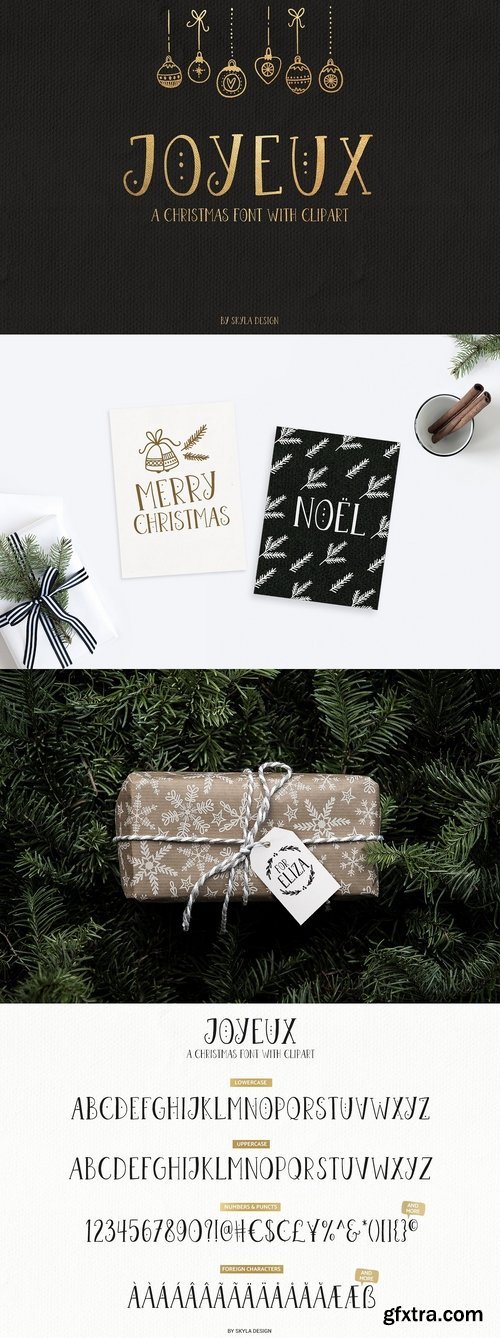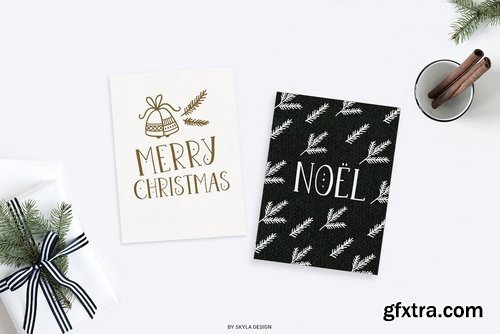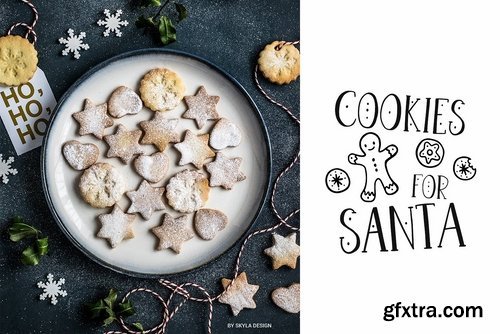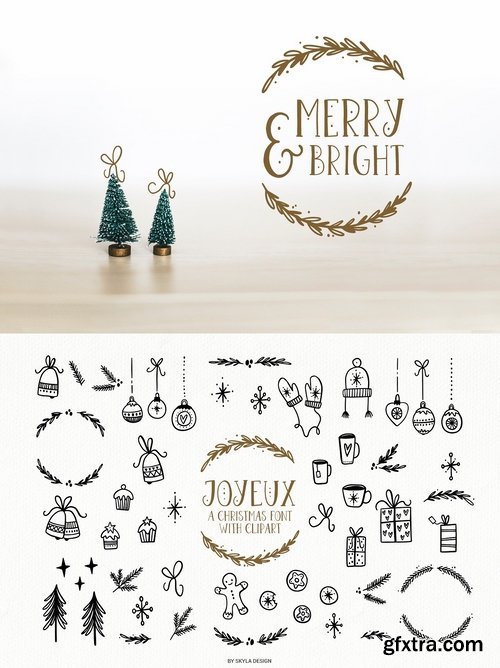
Joyeux is a Christmas font with 52 cute clipart illustrations which will make crafting so much fun.
Joyeux font is an all-caps font that contains standard characters, lowercase, uppercase, numbers, punctuation and international characters.